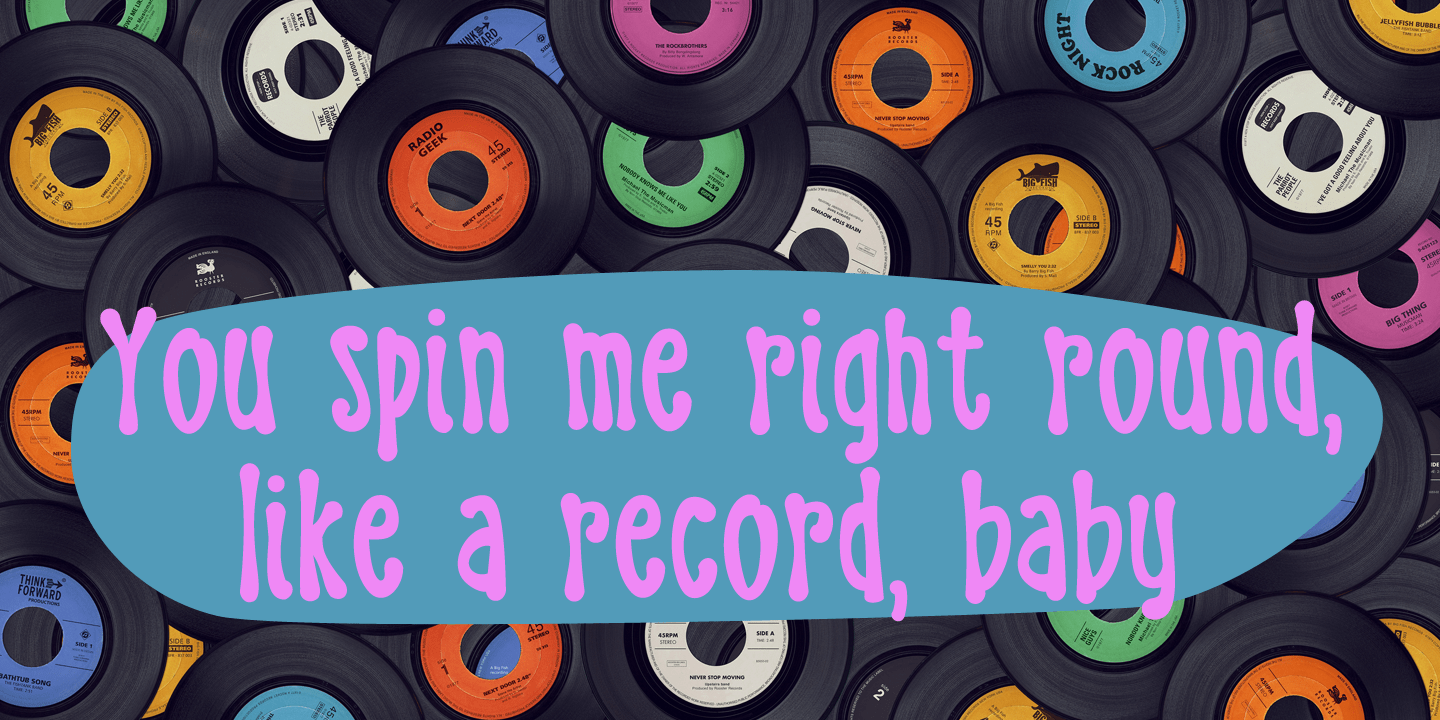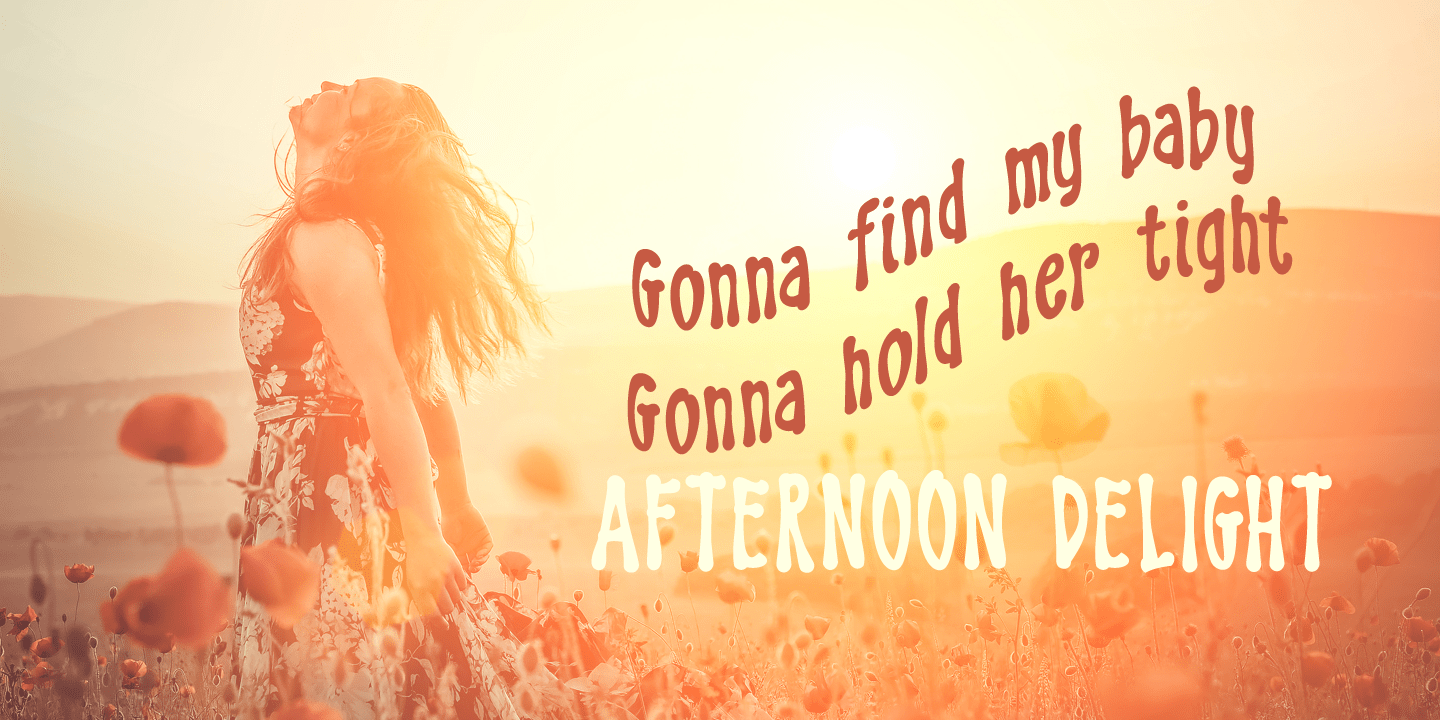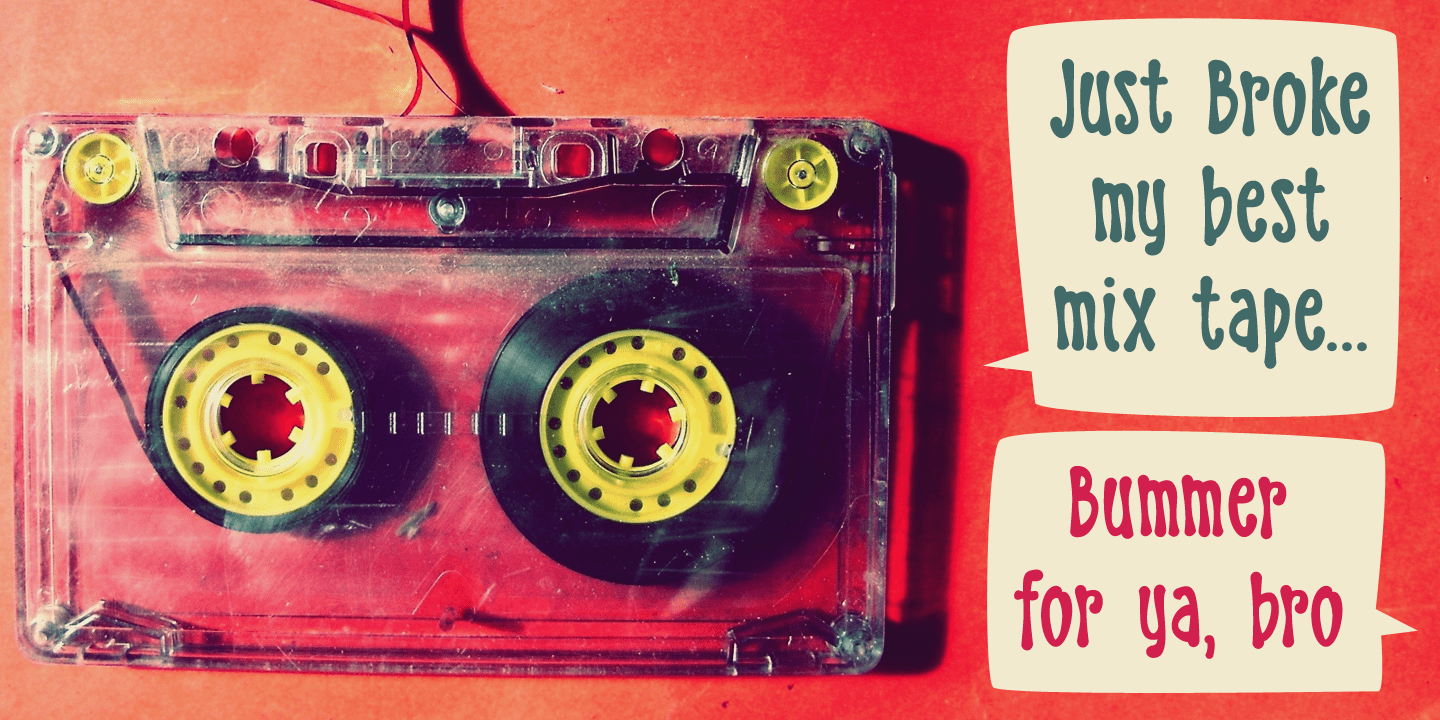
About Discolicious
Put the needle in the groove and jive baby! Discolicious brings back the golden age of moustaches and sideburns, psychedelic tie-dyes and bell bottoms. Use this ?bubblegum? disco font for your product packaging, magazines and party posters and they\’ll…